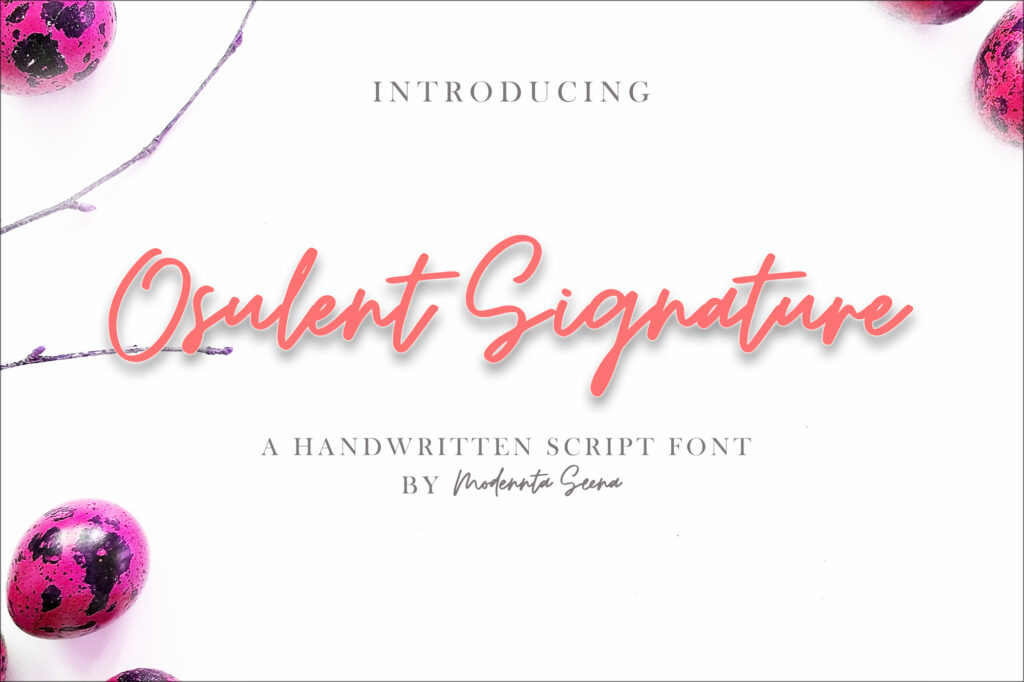
Introducing Osulent Font: The Epitome of Modern Signature Scripts
In the realm of typography, fonts play a pivotal role in defining the aesthetic and tone of any design project. Among the myriad of fonts available, Osulent stands out as a modern signature script that embodies elegance and sophistication. Dubbed as the perfect font for adding a handwritten touch to your designs, Osulent has garnered attention from designers and typography enthusiasts alike. This article aims to provide an in-depth look at Osulent, exploring its features, applications, and the unique value it brings to the world of design.
The Genesis of Osulent
Osulent is not just another font; it’s a carefully crafted typeface designed to bring a sense of elegance and personal touch to digital and print designs. Its creation was inspired by the need for a modern, yet timeless, script font that could seamlessly blend with various design contexts. Whether it’s for branding, advertising, packaging, or digital media, Osulent was designed to elevate the visual appeal of any project.
Key Features of Osulent
Osulent boasts several key features that make it a standout in the world of typography:
- Modern Signature Script: Osulent is characterized by its fluid strokes and contemporary feel, making it perfect for projects that demand a modern aesthetic.
- Elegant and Readable: Despite its elegant nature, Osulent maintains a high level of readability, making it suitable for both headings and body text.
- Versatile: This font is incredibly versatile, capable of complementing a wide range of design styles, from minimalist to luxurious.
- Handwritten Touch: Osulent brings a unique, handwritten quality to designs, adding a personal and approachable feel.
Applications of Osulent
The versatility of Osulent makes it applicable in a myriad of design contexts:
- Branding and Logo Design: Osulent can be used to create memorable and impactful logos that convey sophistication and elegance.
- Advertising and Marketing Materials: Its modern appeal makes it perfect for ad campaigns, brochures, and flyers that need to capture attention.
- Packaging Design: For product packaging, Osulent can add a touch of luxury and uniqueness, standing out on store shelves.
- Digital Media: Whether it’s for website headers, social media graphics, or email newsletters, Osulent can enhance the visual appeal of digital content.
Why Choose Osulent?
In a sea of fonts, Osulent offers several advantages:
- Uniqueness: Osulent provides a distinctive look that can set your designs apart from the competition.
- Flexibility: It can be used across various platforms and design applications.
- Ease of Use: Osulent is easy to integrate into design workflows, supporting a wide range of design software.
- Constant Updates: As a modern font, Osulent is likely to receive updates, ensuring it remains relevant and functional.
Tips for Using Osulent Effectively
To maximize the impact of Osulent, consider the following tips:
- Pair with Complementary Fonts: When using Osulent alongside other fonts, choose ones that complement its elegance and modernity.
- Adjust Letter Spacing: For optimal readability, adjust the letter spacing according to the context in which Osulent is used.
- Utilize Font Weights: If Osulent comes in multiple weights, experiment with them to create visual hierarchy and emphasis in your designs.
- Limit Usage: While Osulent is versatile, its overuse can dilute its impact. Use it strategically to highlight key elements.
Osulent represents a significant addition to the typography world, offering a perfect blend of modernity, elegance, and readability. Its suitability for a wide range of design applications makes it a valuable asset for designers looking to imbue their projects with a personal and sophisticated touch. As design trends continue to evolve, fonts like Osulent stand at the forefront, pushing the boundaries of creativity and aesthetic appeal. Whether you’re a seasoned designer or a newcomer to the world of typography, Osulent is undoubtedly worth exploring for its potential to transform your designs.
FAQs About Osulent Font
- Q: Is Osulent suitable for body text? A: Yes, Osulent is designed to be readable and can be used for body text, though it’s primarily optimized for headings and titles.
- Q: Does Osulent come in different weights? A: This may vary depending on the version of Osulent you acquire. Some versions may offer multiple weights for added versatility.
- Q: Is Osulent a script font? A: Yes, Osulent is classified as a modern signature script font.